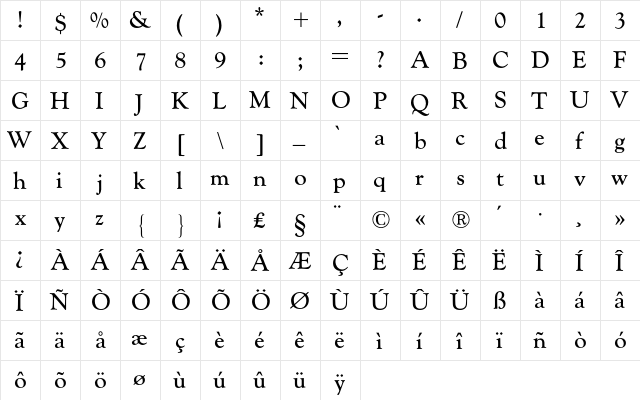
Goudy Catalogue BQ Regular
Design Context for Goudy Catalogue BQ Typeface
Goudy Catalogue BQ is a composed and adaptable typeface that performs quietly and consistently across a wide range of design contexts.